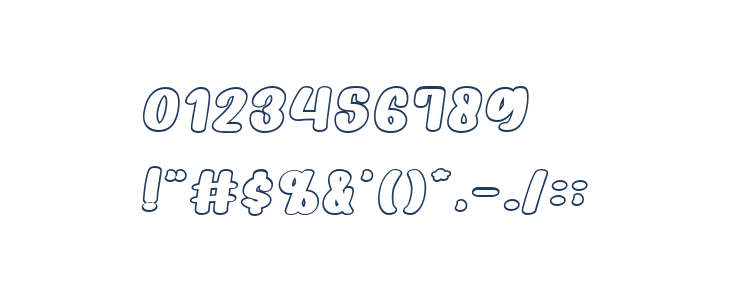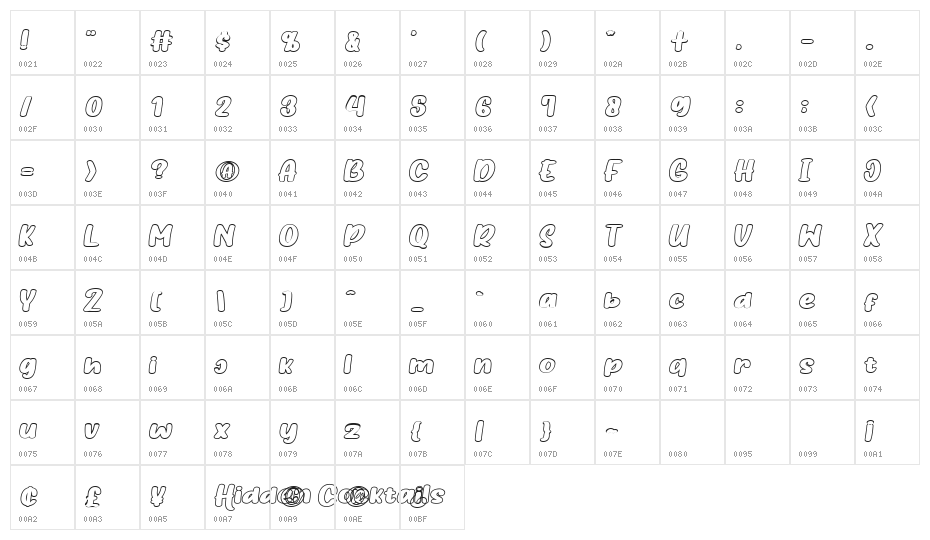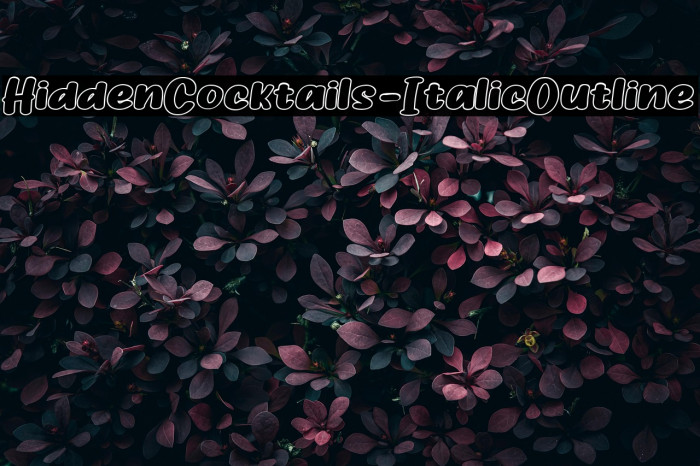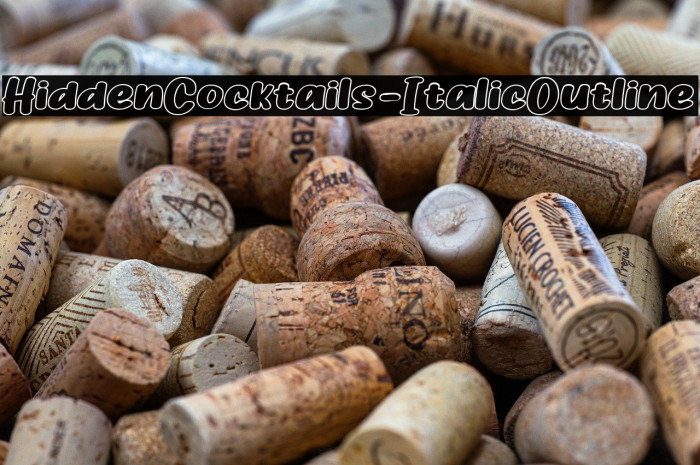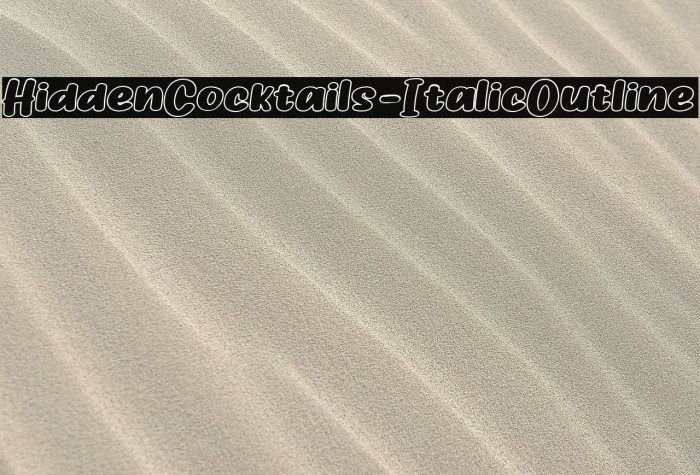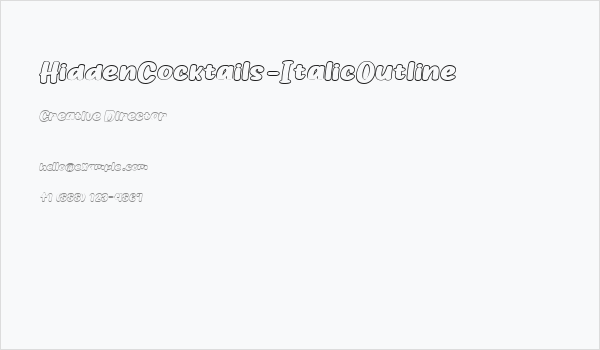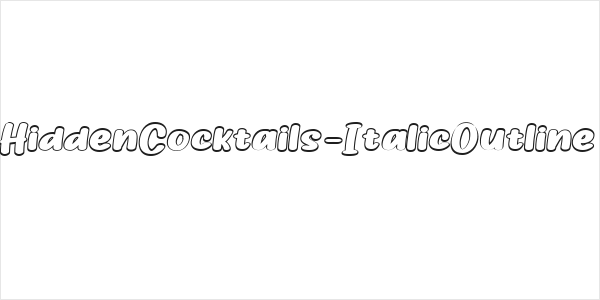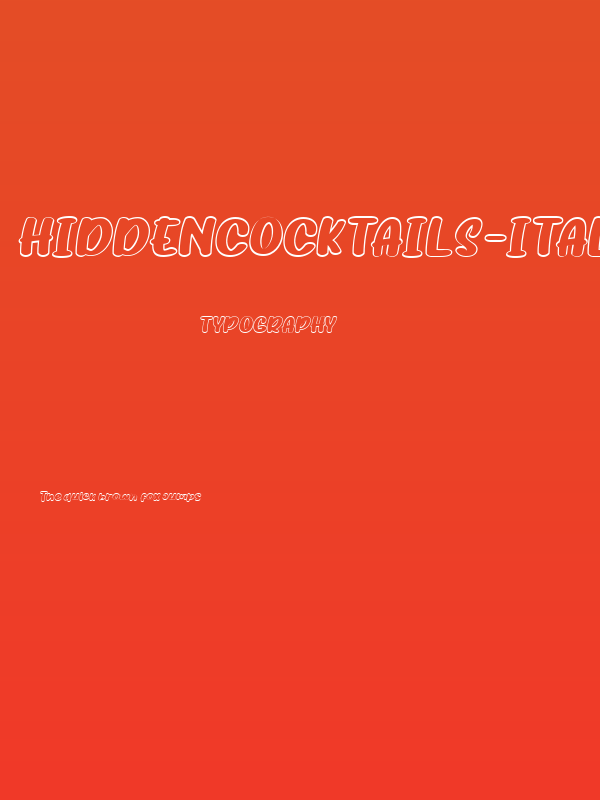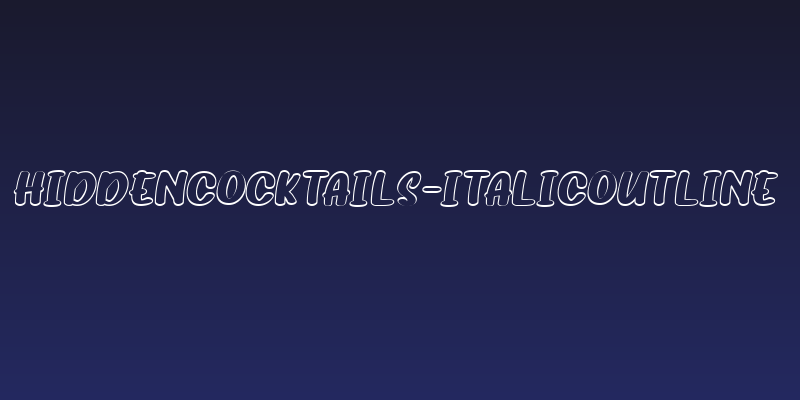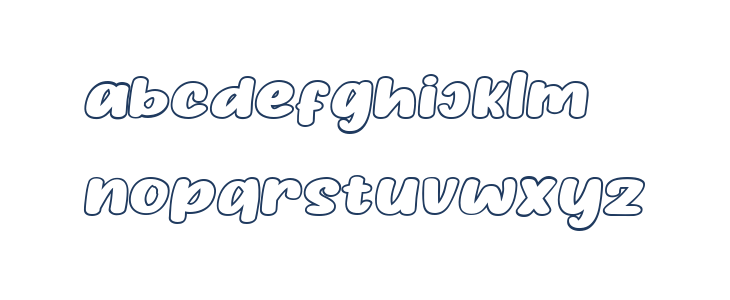
HiddenCocktails-ItalicOutline Font
HiddenCocktails-ItalicOutline Description
This playful and bold font features a unique outline style that gives it a lively and dynamic appearance. The characters are rounded and slightly italicized, adding a sense of movement and energy. Each letter is outlined, creating a hollow effect that enhances its decorative appeal. The font maintains consistent thickness throughout, ensuring readability while still offering a distinctive look. The numbers and special characters follow the same design principles, making it a versatile choice for various creative projects.
| Overall Style | Playful, Decorative |
| Proposed Projects | Ideal for children's book covers, playful branding, party invitations, and eye-catching posters. |